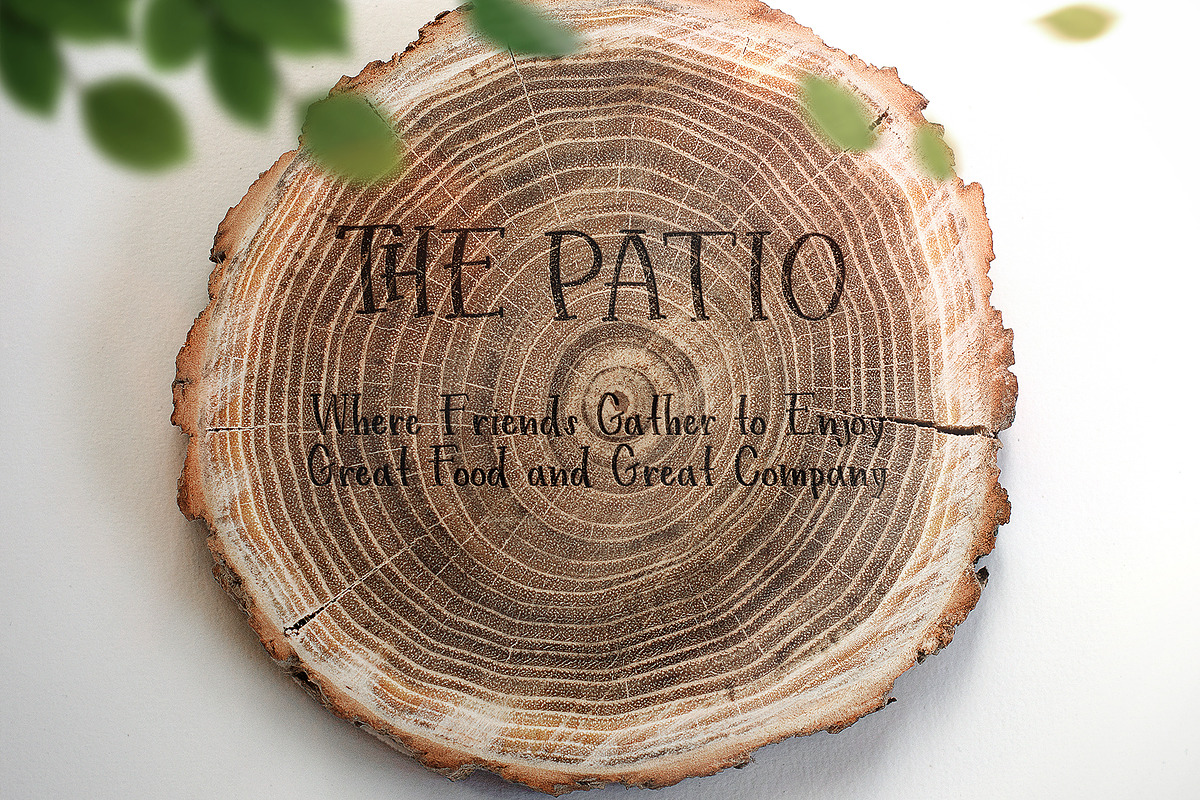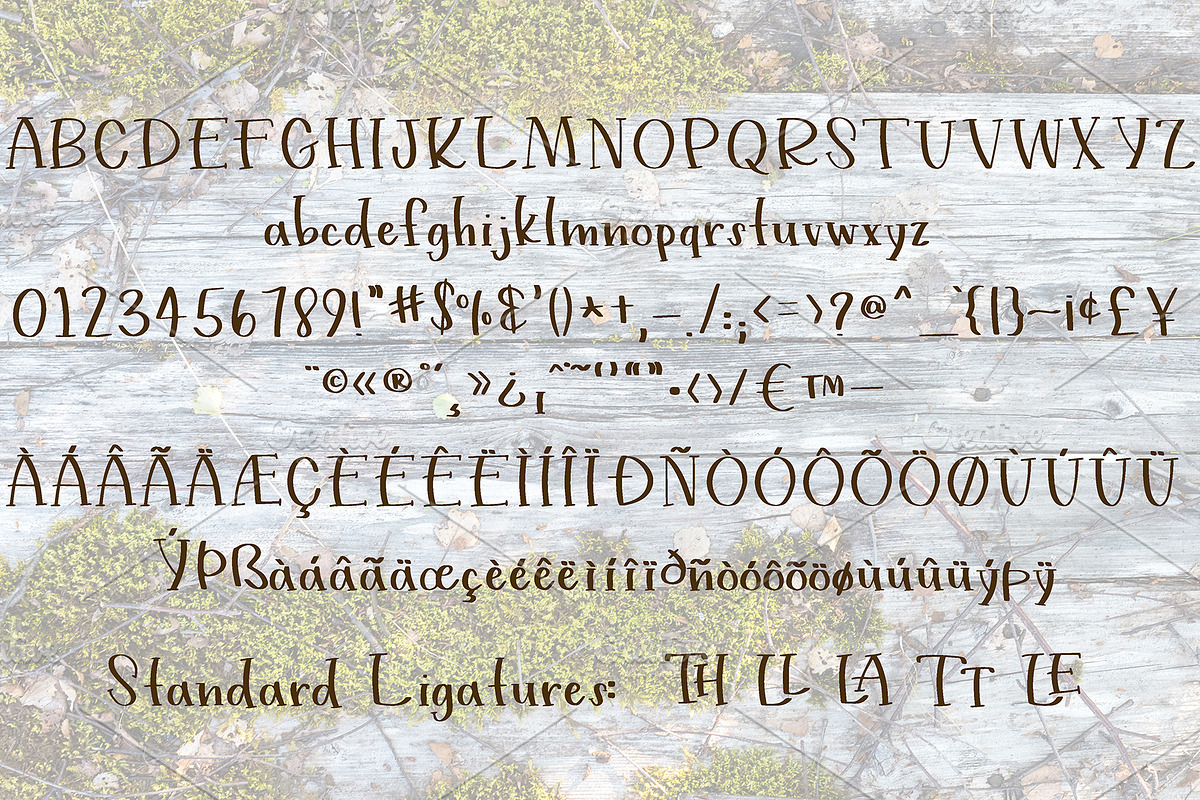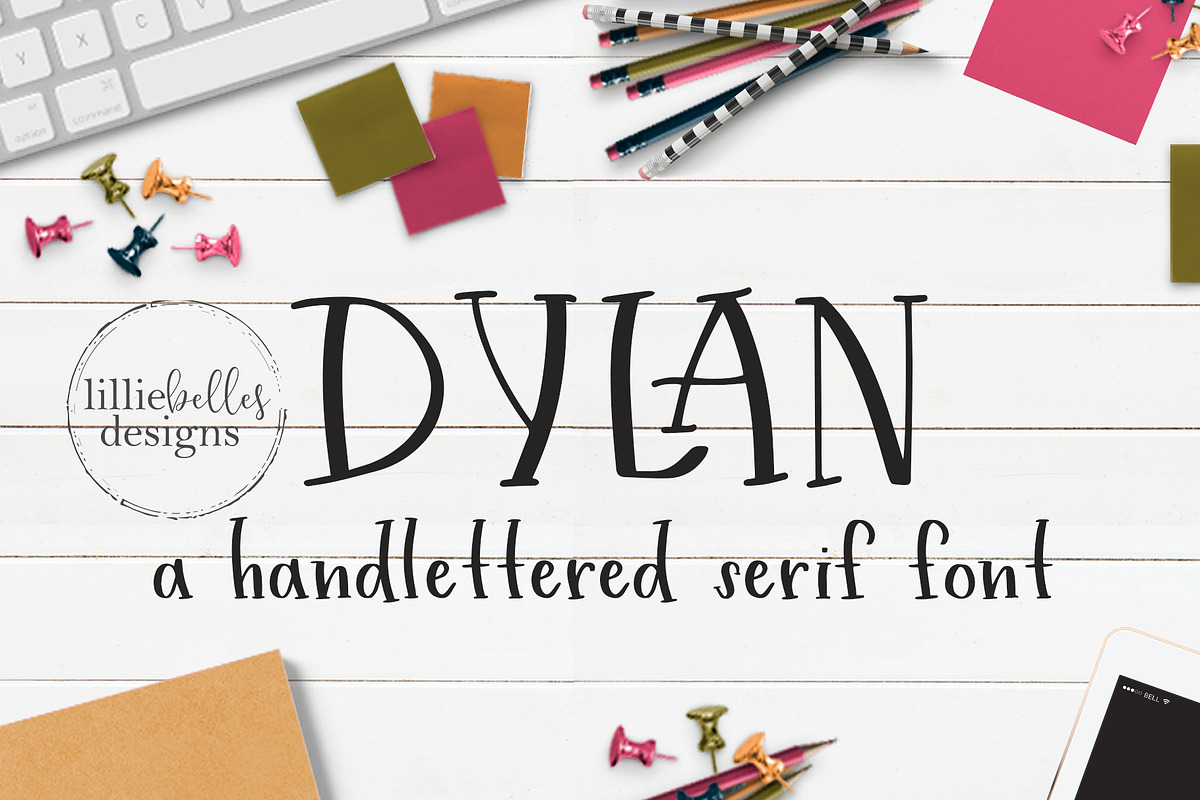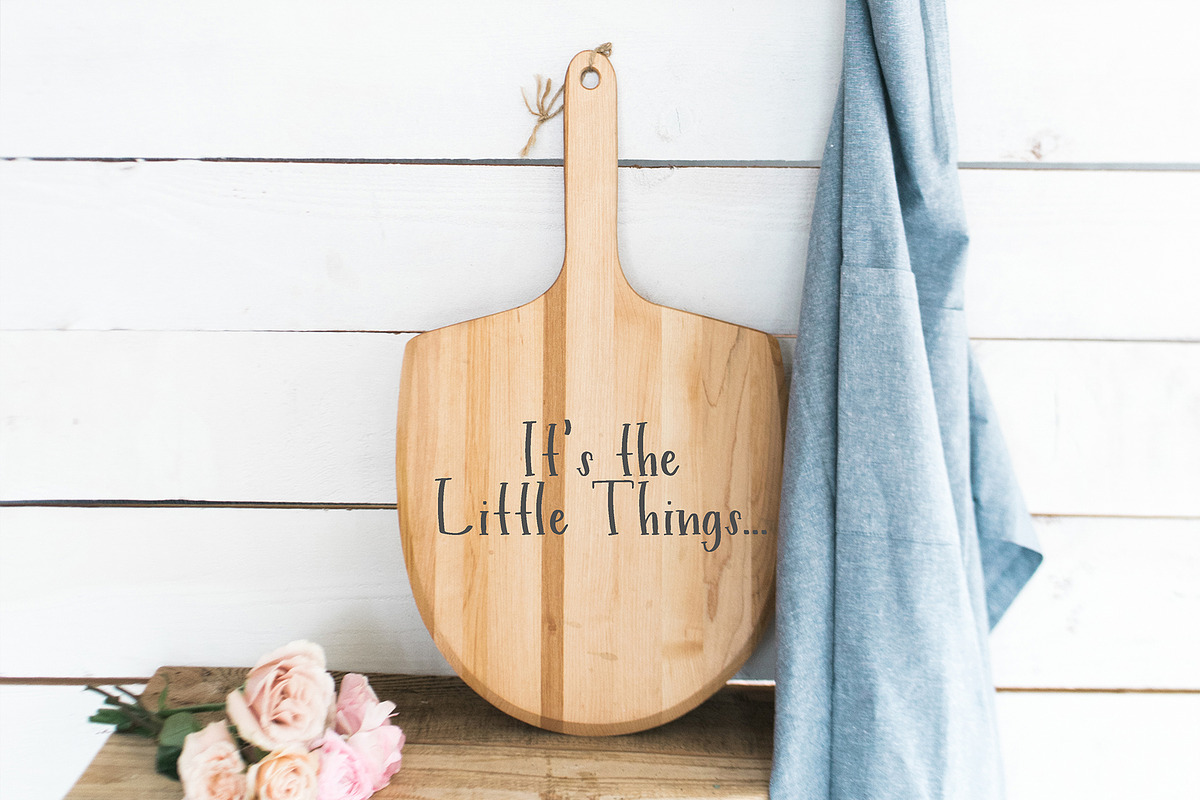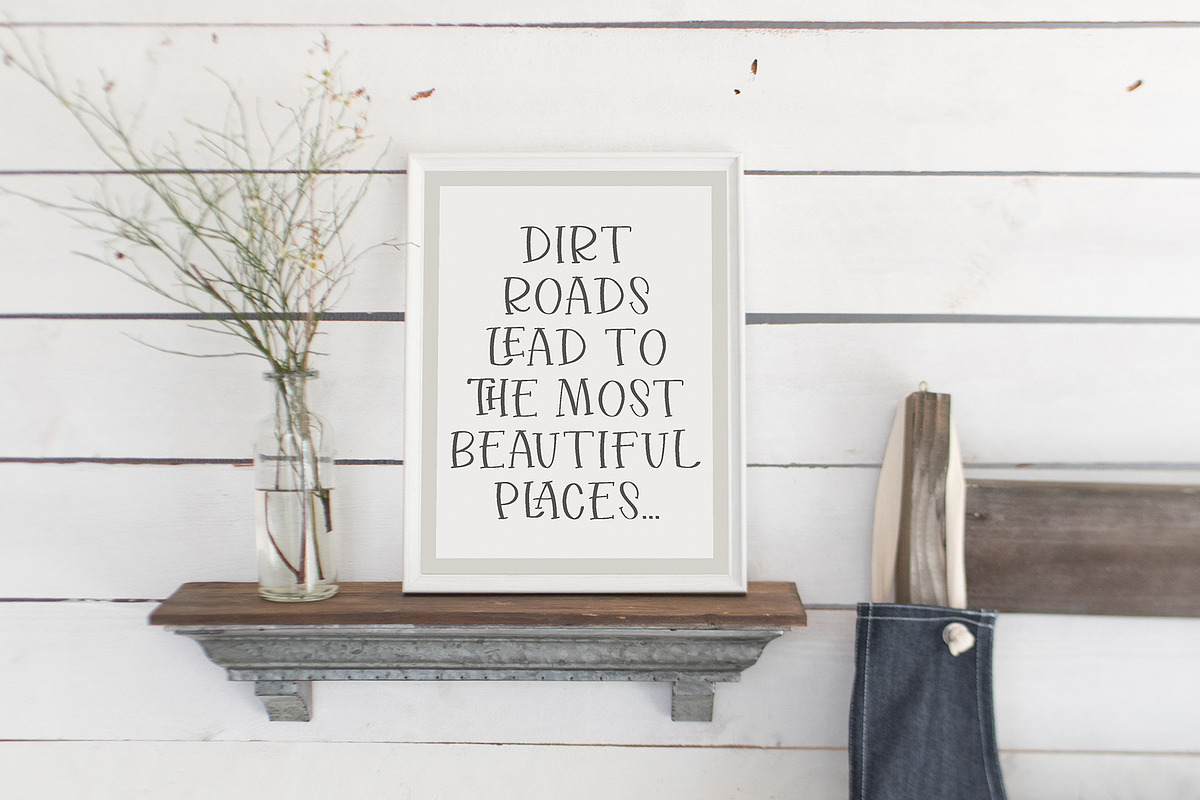
Dylan - A Handwritten Serif Font
A handwritten serif font with character!
This font will look great on prints, invitations, logos, bags and so much more!
Uppercase and lowercase
Numbers and Punctuation